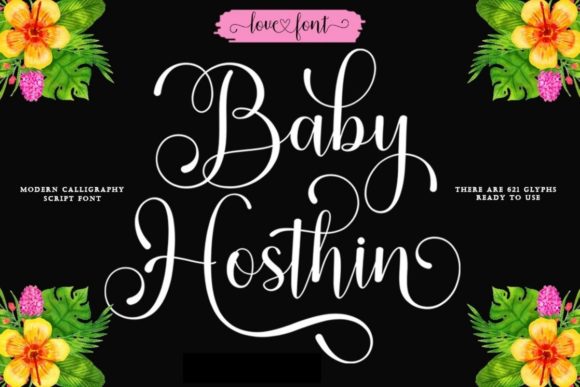
Welcome to the world of Baby Hosthin, a captivating script font that will ignite your creativity and leave a lasting impression on your designs. Step into a realm of elegance and sophistication as you explore the boundless possibilities that await you.
Unleash the charm of Baby Hosthin, a font that dances across your screen with its graceful curves and endearing personality. Inspired by the delicate touch of a handwritten note, Baby Hosthin captures the essence of timeless beauty, making it a treasure for any project seeking a touch of heartfelt charm.
With its enchanting appearance, Baby Hosthin is the perfect choice for wedding labels, evoking a sense of romance and exclusivity. Imagine your wedding invitations adorned with Baby Hosthin's flowing script, exuding an air of elegance and sophistication that will captivate your guests.
But Baby Hosthin's allure extends far beyond wedding labels. Its versatility shines in logos, branding, social media posts, and any project that calls for a touch of refined charm. Its smooth lines and harmonious flow bring a sense of cohesiveness and unity to your designs, leaving a lasting impression on your audience.
Elevate your designs with Baby Hosthin's PUA encoding, granting you effortless access to a treasure trove of glyphs and ligatures. Unleash your creativity and explore the endless possibilities to create captivating designs that speak volumes.
Baby Hosthin is more than just a font; it's a gateway to a world of creative expression. As you embrace its beauty, you'll discover the power to transform ordinary designs into captivating masterpieces. Let Baby Hosthin be your muse and embark on a journey of artistic exploration that will leave you breathless.
Don't resist the allure of Baby Hosthin. Dive into its enchanting embrace and let your creativity soar. Experience the joy of crafting designs that captivate and inspire, leaving an indelible mark on the world. Embrace Baby Hosthin today and unlock the gateway to design excellence.